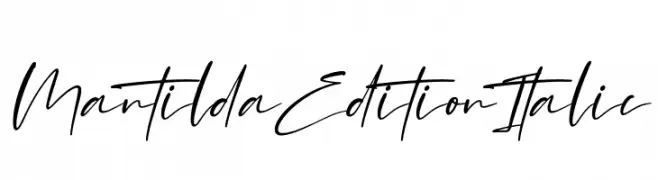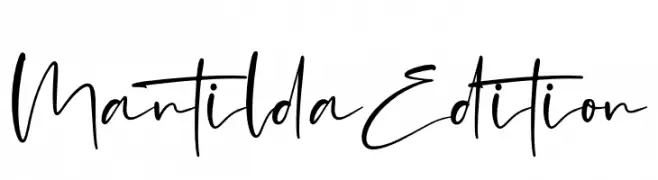
( EXPEDITION ANNIHILATION )
A modern, geometric font with sharp angles and smooth curves, perfect for contemporary designs.
A bold, textured script font with a rugged, adventurous style.
A bold, textured font with a three-dimensional effect and artistic flair.
A cursive, handwritten font with elegant and fluid strokes.
A bold, flowing script font with elegant cursive letterforms.
A lively, expressive script font with fluid, dynamic strokes and a personal touch.
A dynamic, cursive script font with elegant slants and lively contrast.
A flowing, cursive italic font with elegant, connected letters.
A lively and expressive handwritten font with fluid strokes.